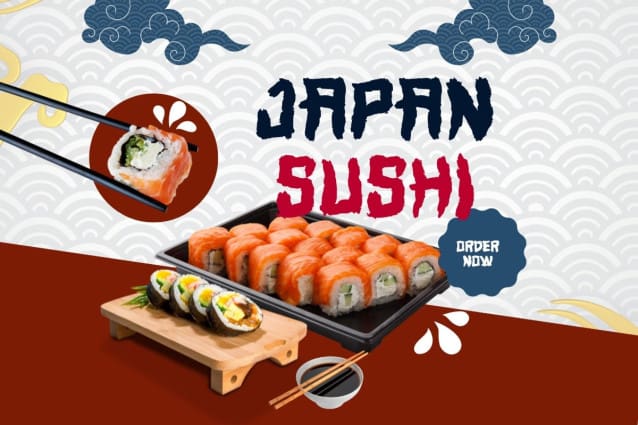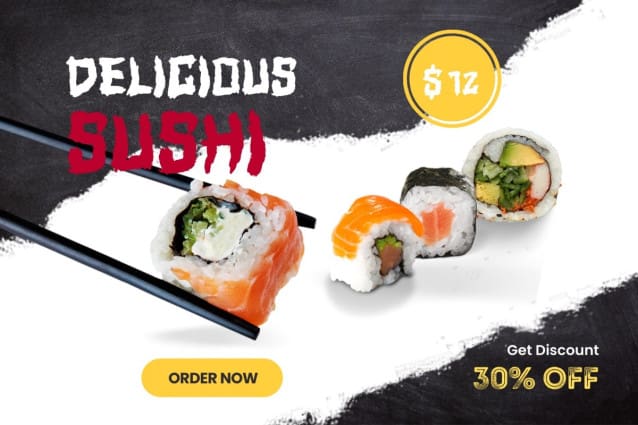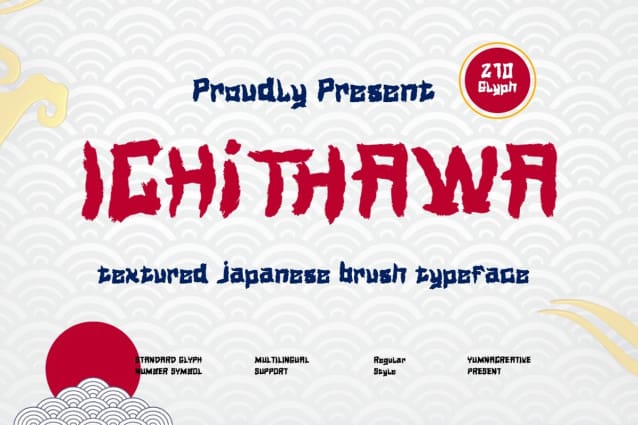
Ichithawa Textured Japanese Font
Ichithawa Textured Japanese Font is a textured Japanese fabric known for its unique, slightly raised pattern. It has a soft feel and a distinctive look, often used in clothing and home décor. The texture gives it a rich, sophisticated appearance while remaining lightweight and comfortable.